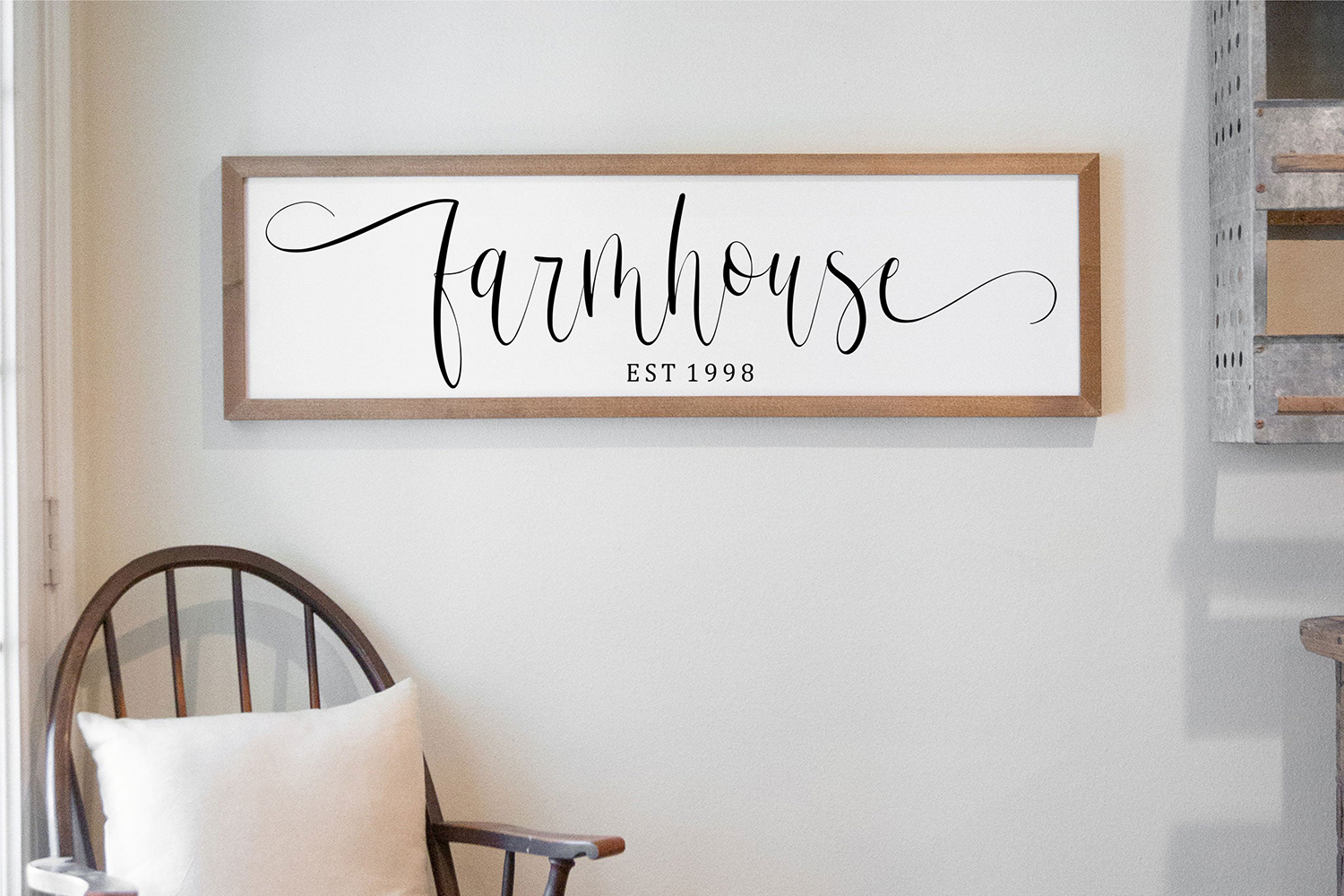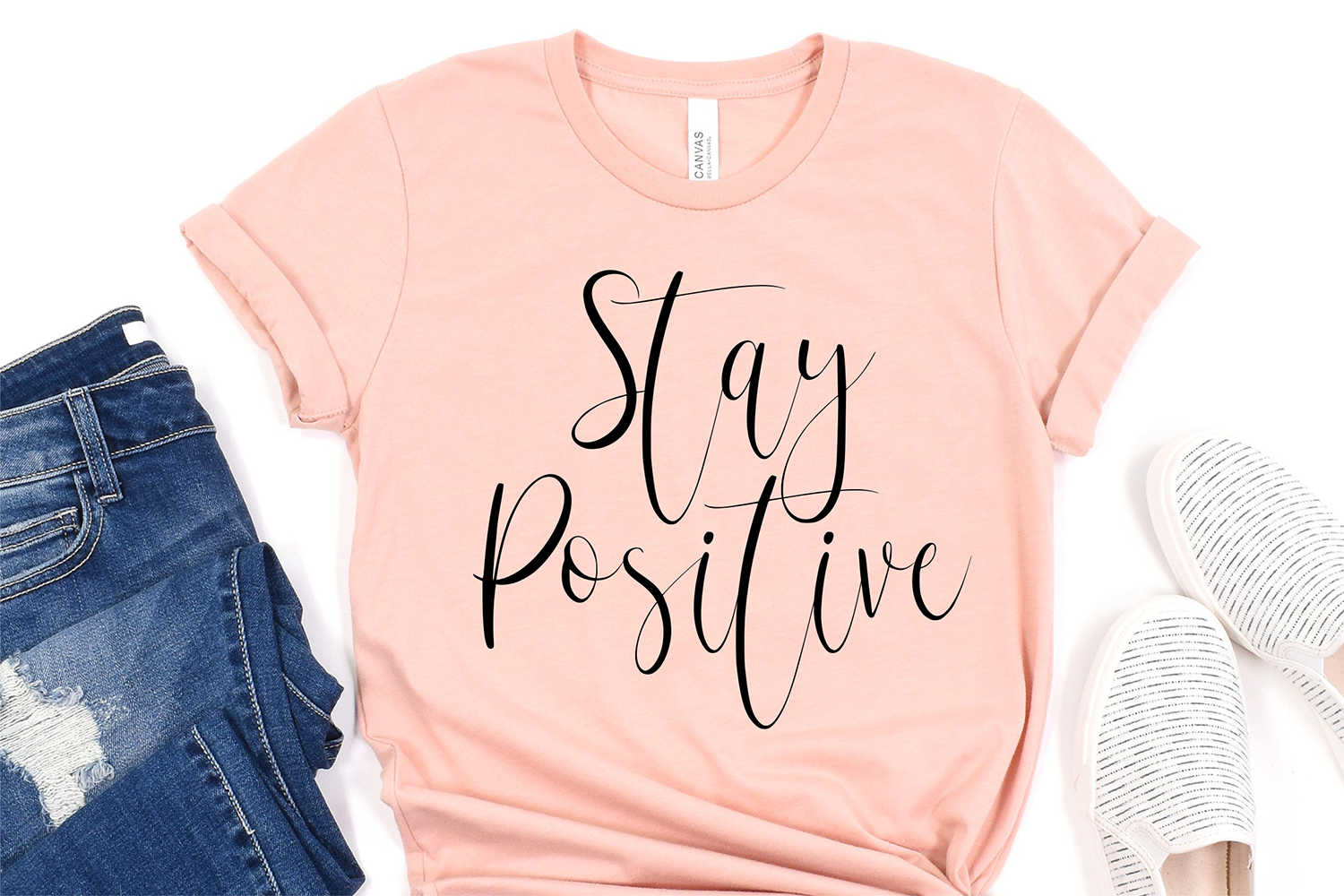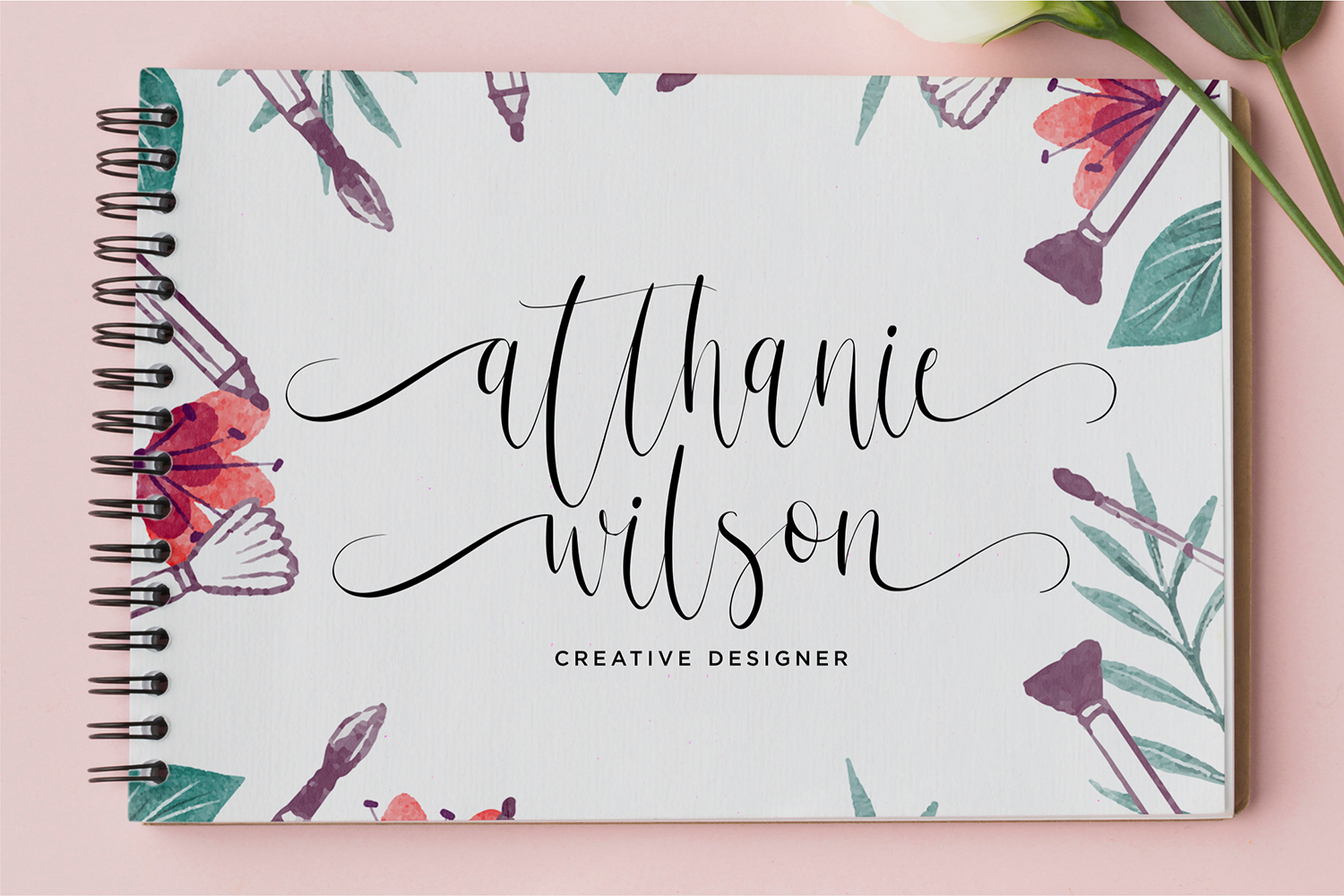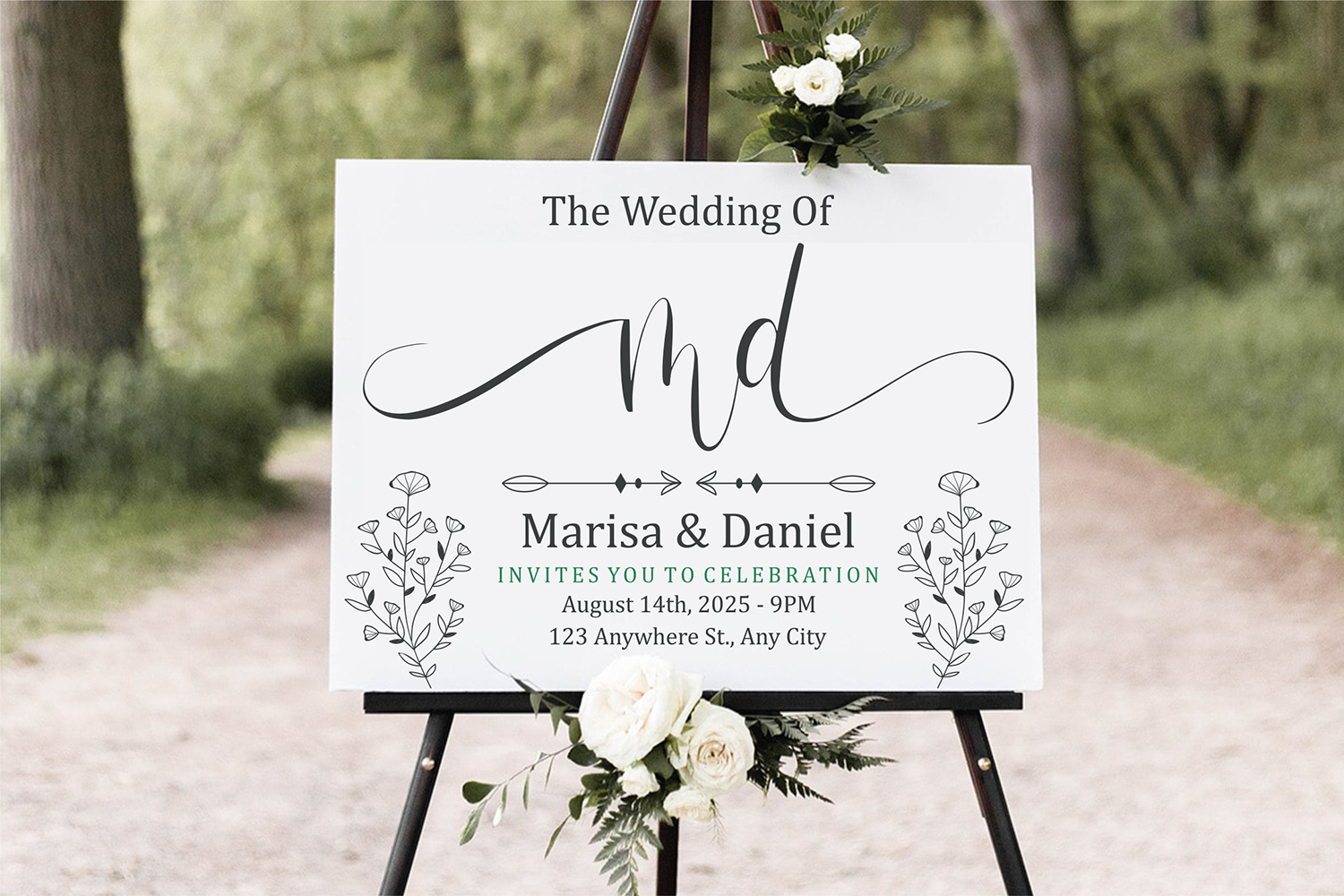
Synthilea Free Font
Synthilea Free Font is a graceful and thin lettered script font that exudes elegance and charm. Immerse yourself in its delicate style and let your creativity soar to new heights as you craft outstanding projects. With Synthilea as your artistic companion, your designs are bound to captivate and leave a lasting impression. Embrace the beauty of this font and unlock a world of possibilities for your creative endeavors. This free typeface was designed by a talented Qwrtype Foundry. If you like it don’t forget to check out the full version.